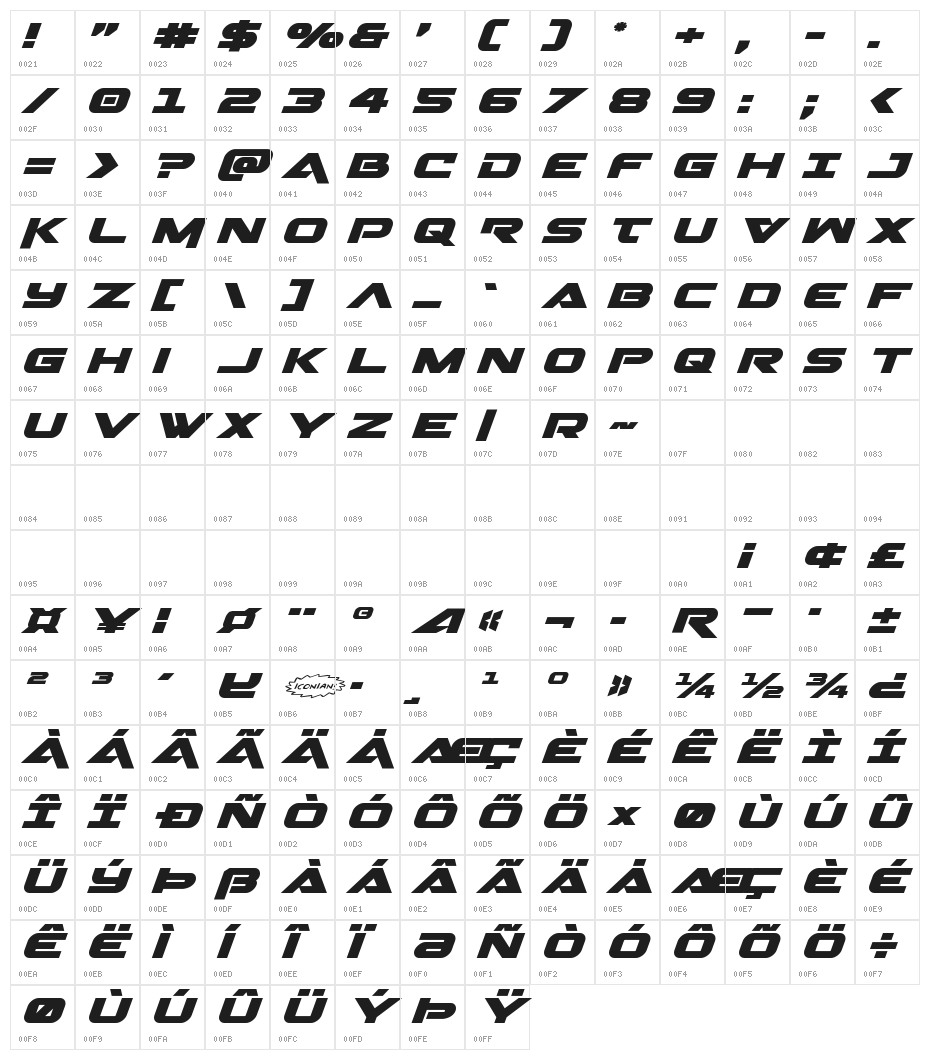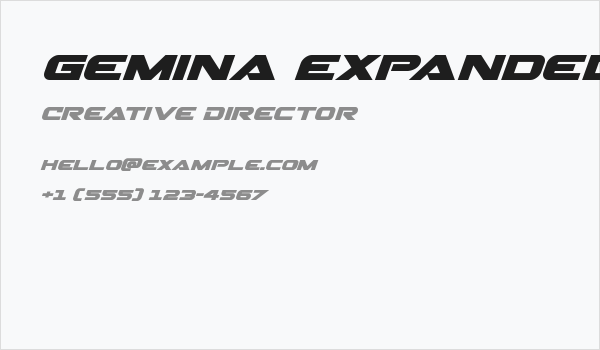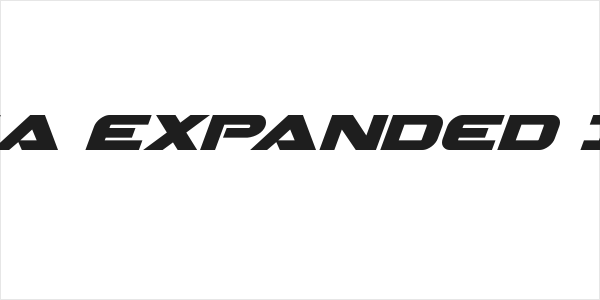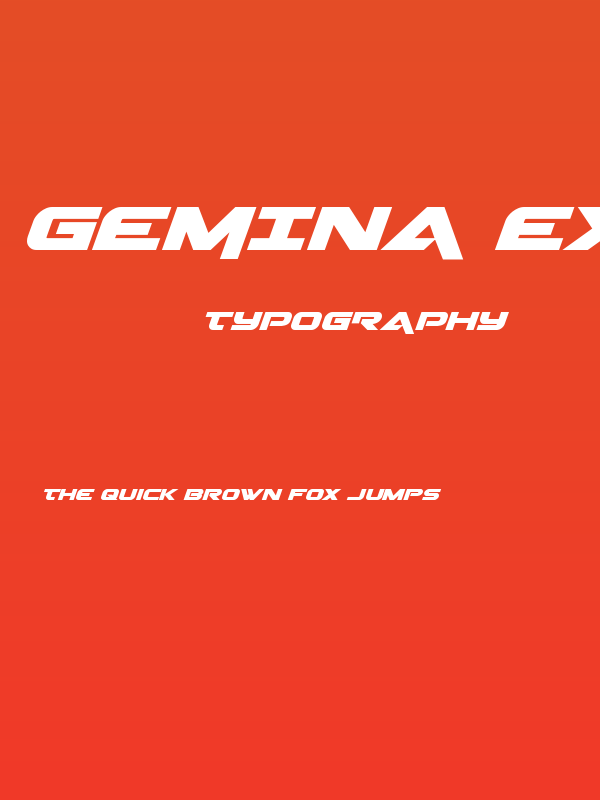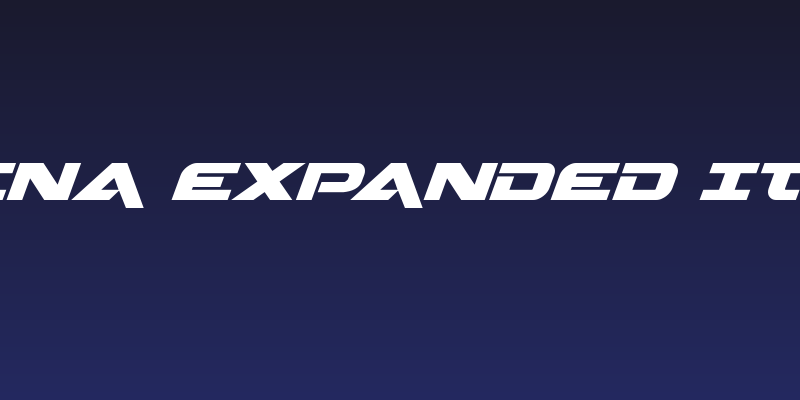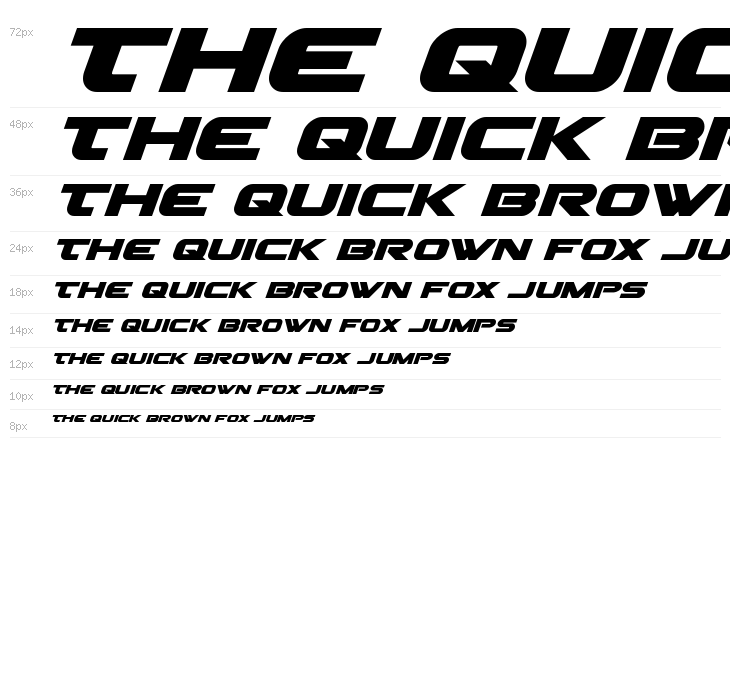
Gemina Expanded Italic Font
Gemina Expanded Italic Description
This font features a bold and dynamic style with an italicized slant, giving it a sense of motion and energy. The characters are expanded, providing a wide and impactful appearance. The strokes are thick and consistent, contributing to a strong visual presence. The angular design of the letters adds a modern and futuristic touch, making it suitable for attention-grabbing headlines or branding. The numbers and special characters maintain the same bold and italicized characteristics, ensuring uniformity across all glyphs.
Use CaseHeadlines, Logos, Branding
Proposed ProjectsIdeal for sports branding, dynamic posters, futuristic designs, and impactful headlines.